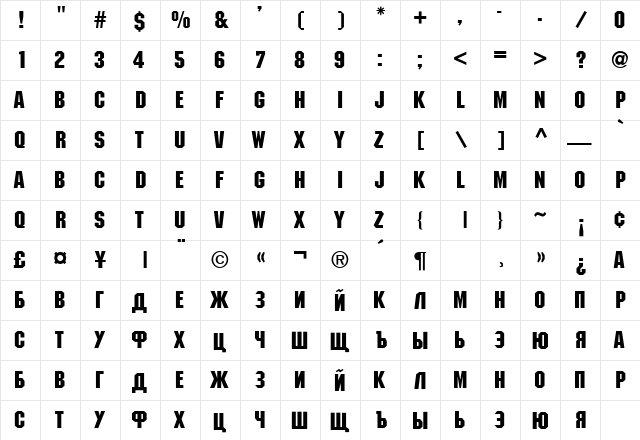
Motor Cyr Regular
Design Context for Motor Cyr Typeface
Motor Cyr is a composed and adaptable typeface that performs quietly and consistently across a wide range of design contexts.